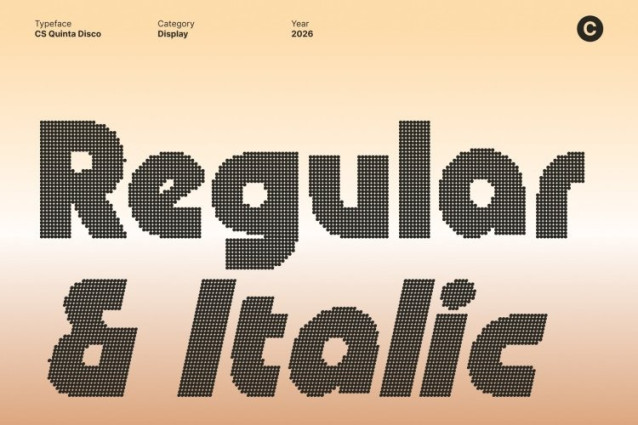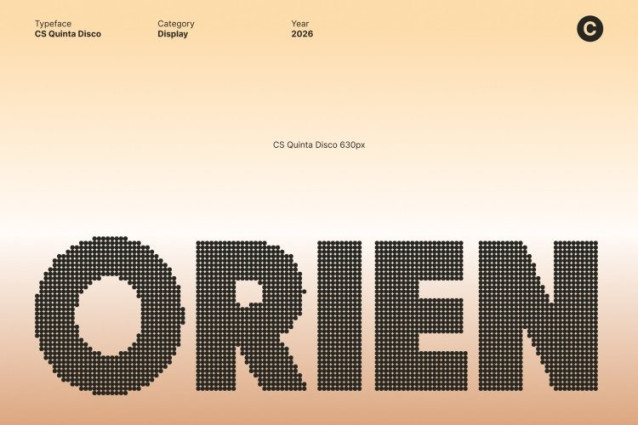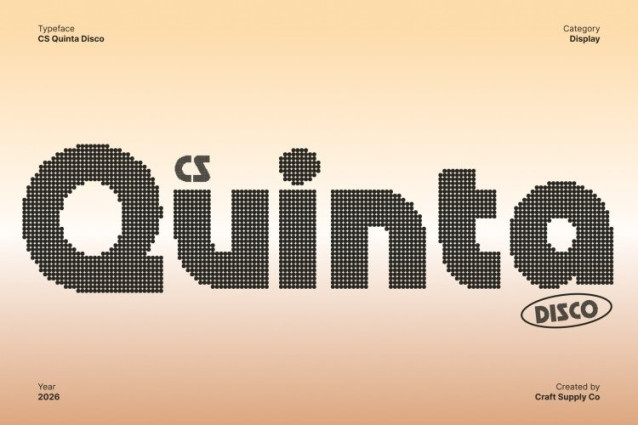
CS Quinta Disco Font
CS Quinta Disco Font This is a bold modern sans serif font built on clean, techno-inspired geometry and elevated with disco-style flair. Its strong, structured letterforms project clarity and confidence, while futuristic influences bring a sharp, contemporary edge that feels alive under flashing lights.
Funky Details with Energetic Personality
What sets this font apart is its funky, expressive character. Subtle playful touches add rhythm and movement to every letter, creating a typeface that feels energetic, stylish, and full of attitude. The result is a font that doesn’t just communicate it performs.
Designed for Vibrant and High-Energy Projects
Perfect for posters, logos, branding, event visuals, and bold headlines, this font thrives in creative environments that celebrate excitement and individuality. Its disco spirit channels the pulse of the dance floor, making designs feel festive, modern, and unforgettable.
Powerful Impact with Clean Readability
Despite its bold weight and expressive style, maintains excellent readability. The balanced proportions and precise geometry ensure clarity across print and digital media, delivering high impact without losing control or refinement.